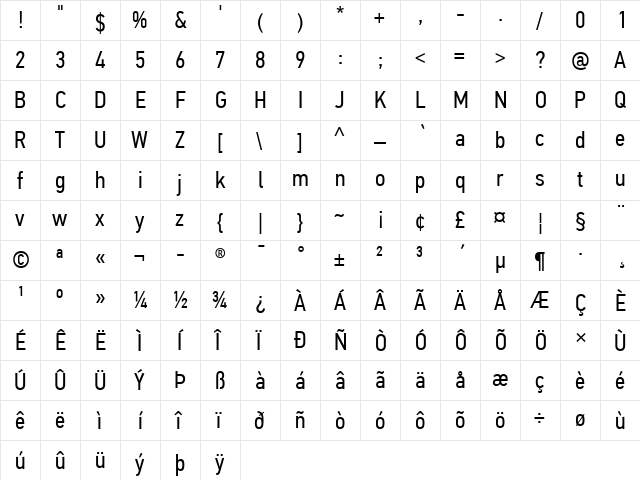
PF Din Text Cond Pro Regular
| Foundry | Parachute蠗orldwide |
| Designer | Panos Vassiliou |
Design Context for PF Din Text Cond Pro Typeface
PF Din Text Cond Pro takes a measured approach to typography — its balanced proportions and neutral character make it a reliable workhorse for both digital and print work. Its narrow stance lets it pack a punch even in space-constrained designs.